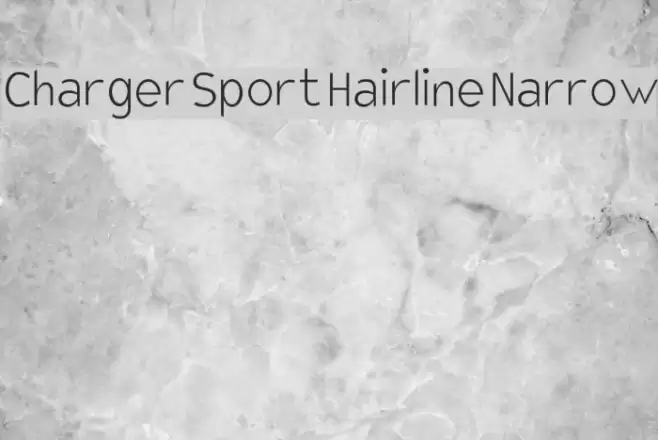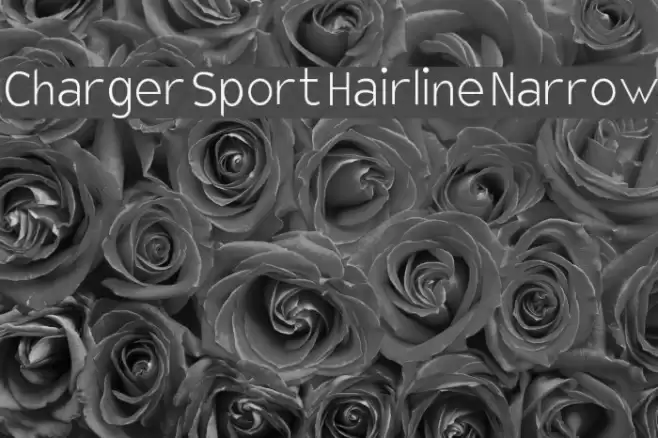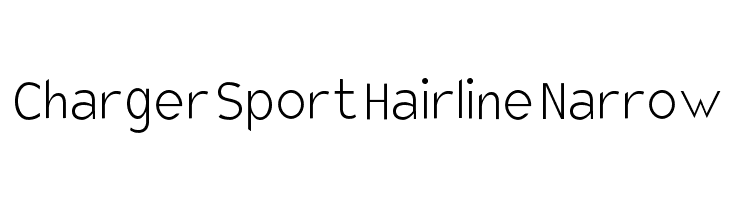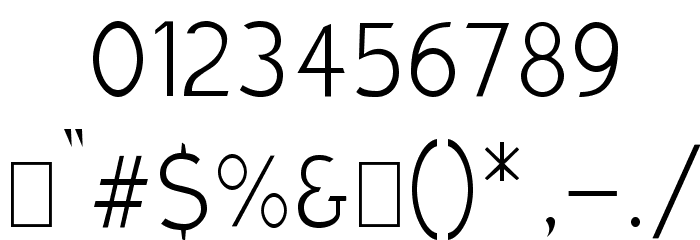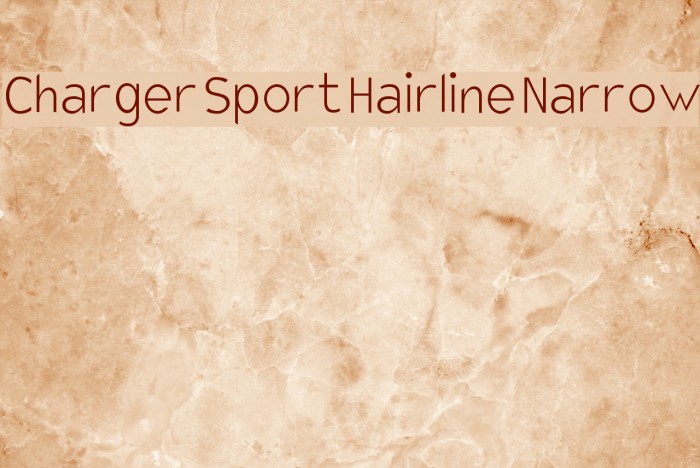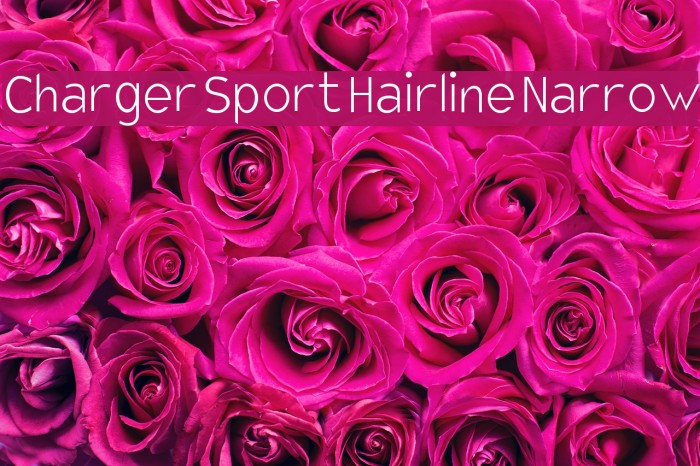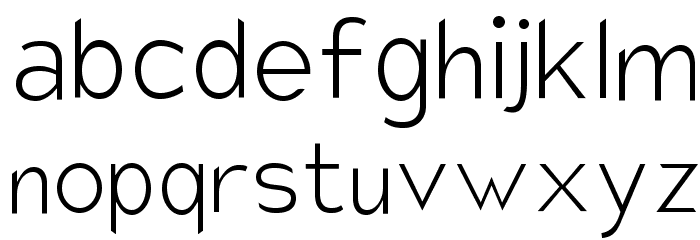
Charger Sport Hairline Narrow Font
Charger Sport Hairline Narrow Description
This font features a sleek, modern design with a narrow and streamlined appearance. The characters are crafted with a hairline stroke, giving them a light and airy feel. The uppercase and lowercase letters maintain a consistent geometric structure, emphasizing clarity and readability. The numerals are uniform and align well with the overall style, while the special characters are distinct yet harmonious with the alphabetic characters. This font's minimalist aesthetic makes it versatile for various design applications.
A sleek, modern font with narrow, hairline strokes and a minimalist aesthetic from Uncategorized fonts.
- Proposed Projects: Ideal for modern branding, digital interfaces, minimalist posters, and editorial design.